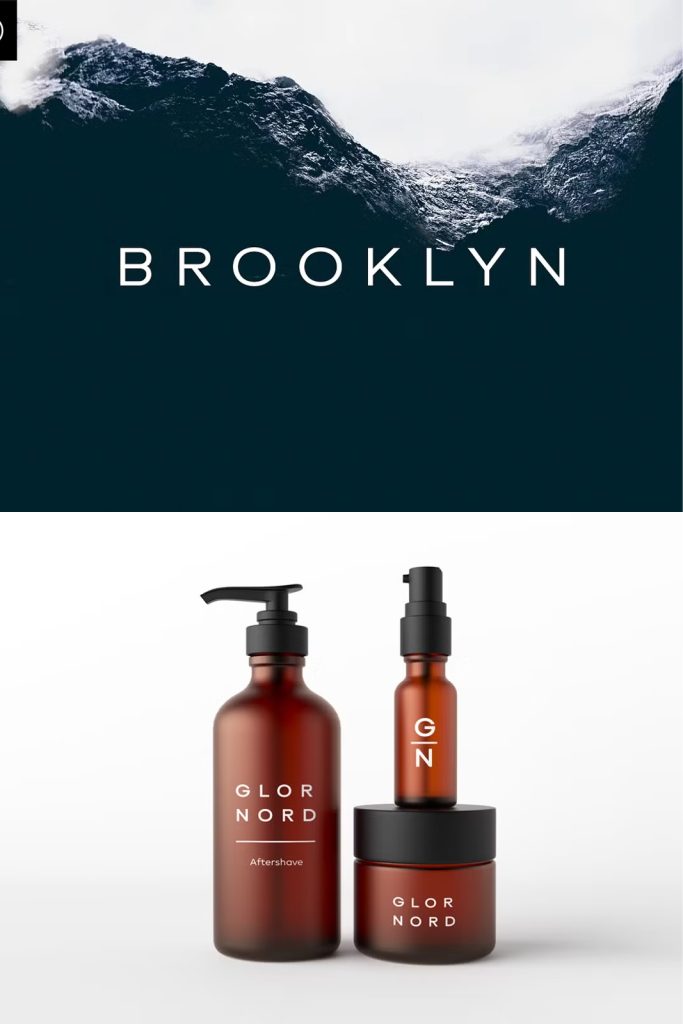
Brooklyn Sans Serif Font – Modern Geometric Typeface for Minimal and Stylish Designs
Brooklyn Sans Serif Font is a contemporary typeface that embodies minimalism, balance, and timeless sophistication. Inspired by classic geometric fonts, Brooklyn merges clean lines with refined proportions, creating a perfect visual harmony for modern design projects. Whether you’re designing fashion branding, elegant portfolio websites, or stylish headlines, this typeface brings a polished and professional look to any composition.
Modern Simplicity with Geometric Precision
The Brooklyn Sans Serif Font is designed with a deep appreciation for geometric balance and clarity. Its structure reflects the essence of mid-century modern type design, enhanced with a minimalist touch that fits perfectly into today’s design trends. The result is a typeface that feels modern yet timeless, bold yet understated.
Every letterform in Brooklyn is meticulously crafted to maintain symmetry, proportion, and visual rhythm. The rounded geometry and even spacing make it not only aesthetically appealing but also highly readable. This blend of simplicity and precision gives Brooklyn its distinctive elegance, making it a versatile choice for both digital and print media.
Perfect Typeface for Headlines, Branding, and Portfolios
Brooklyn was created for designers who want to make a statement with minimal effort. Its clean and bold design makes it an ideal choice for headlines, brand logos, packaging, and website interfaces. The typeface shines particularly well when used in fashion-related projects or creative portfolios, where clarity and elegance are essential.
When you increase the letter spacing, Brooklyn transforms into a striking display font with a modern editorial feel. This makes it perfect for fashion web stores, magazine covers, digital banners, and lookbooks. Its contemporary aesthetic adds sophistication and style to any brand identity, helping your design capture attention instantly.
Key Features of Brooklyn Sans Serif Font
- Geometric Design – Inspired by classic geometric sans-serifs with a modern twist.
- Minimalist Aesthetic – Clean, balanced, and visually harmonious for elegant compositions.
- Perfect for Headlines – Ideal for large-scale text and impactful design moments.
- Highly Versatile – Suitable for branding, web design, packaging, and editorial layouts.
- Professional and Readable – Designed with perfect proportions for clarity and sophistication.
Enhance Your Visual Identity with Brooklyn
Typography defines the tone of any brand, and Brooklyn Sans Serif Font helps establish a refined, confident, and modern identity. It’s the perfect foundation for luxury branding, creative agencies, and minimalist portfolio websites. Its simplicity allows other design elements to shine while still maintaining a strong visual presence.
Brooklyn’s clean lines make it adaptable to both digital and print formats. It performs beautifully in editorial layouts, advertisements, posters, and packaging design. Each letter’s shape communicates precision and modern sensibility, reinforcing the professionalism of your brand. Whether you’re creating an elegant fashion logo or a sleek website header, Brooklyn elevates your work with subtle sophistication.
Why Designers Choose Brooklyn Font
Designers love Brooklyn Sans Serif Font for its versatility and timeless appeal. It offers the precision of geometric structure without feeling sterile, and its minimalist aesthetic makes it easy to integrate into diverse design systems. The typeface’s clean rhythm and proportional spacing allow for effortless readability, while its bold simplicity ensures every design feels purposeful and refined.
Its adaptability across platforms makes Brooklyn a reliable tool for any creative professional. From brand identities and web experiences to marketing materials and editorial designs, it delivers consistent visual impact. The understated sophistication of Brooklyn gives every project a polished, modern edge that stands the test of time.
Conclusion: Elevate Your Design with Brooklyn Sans Serif Font
Brooklyn Sans Serif Font is the perfect embodiment of modern geometric typography. Its minimal design, balanced form, and refined details make it an essential choice for designers seeking simplicity and impact. Ideal for fashion branding, portfolio websites, and creative headlines, Brooklyn combines functionality with aesthetic excellence. Add this stunning typeface to your design toolkit and experience how effortlessly it transforms ordinary layouts into sophisticated visual statements.